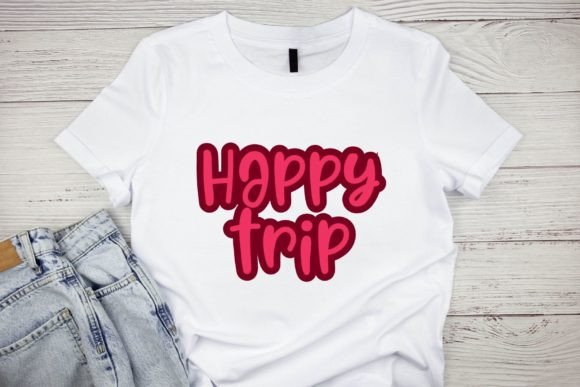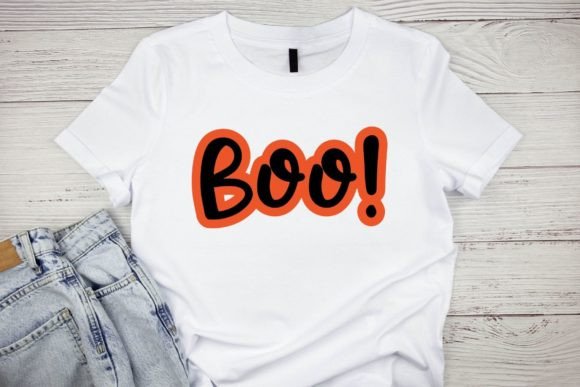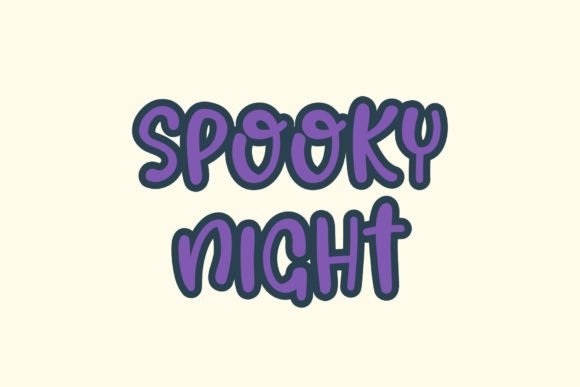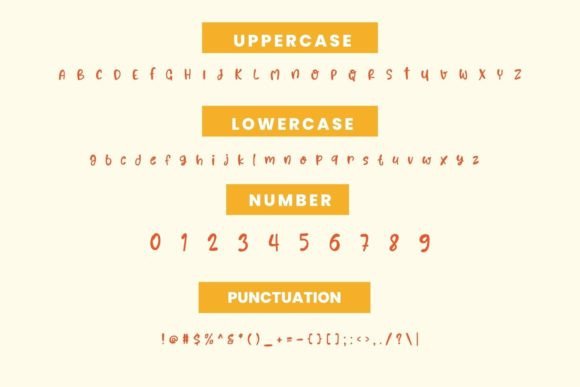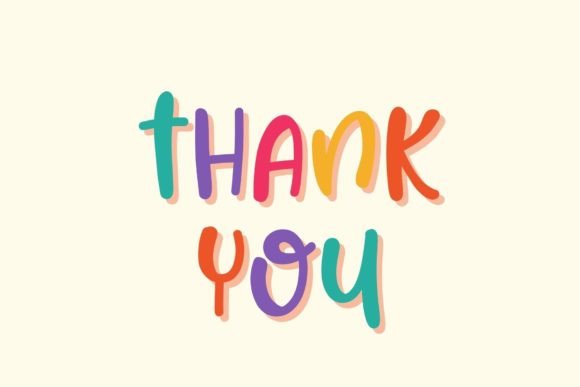
Introducing Colorful Font: The Perfect Choice for Playful and Authentic Designs
Are you looking for a font that embodies playfulness and authenticity? Look no further than Colorful Font, a cute handwritten font that is perfect for adding a personal touch to your designs. Whether you’re working on a blog post, logo, branding, ad, invitation, greeting card, planner, photo album, or decoration, Colorful Font is the ideal choice.
What Makes Colorful Font So Special?
Colorful Font is a unique and charming font that is sure to capture the attention of your audience. Its handwritten style gives it a personal and approachable feel, making it perfect for designs that require a touch of warmth and friendliness. The font’s playful and authentic vibe makes it ideal for a wide range of projects, from fun and quirky designs to more serious and professional ones.
Endless Design Possibilities with Colorful Font
One of the best things about Colorful Font is its versatility. It can be used in a variety of design projects, including:
- Blog Posts: Add a personal touch to your blog posts with Colorful Font. Use it for headings, subheadings, or even the entire text to make your content stand out.
- Logos and Branding: Create a unique and memorable logo for your brand with Colorful Font. Its playful and authentic style makes it perfect for businesses that want to stand out from the crowd.
- Ads: Grab the attention of your target audience with eye-catching ads that feature Colorful Font. Its cute and playful style is sure to make your ads more engaging and effective.
- Invitations and Greeting Cards: Make your invitations and greeting cards more special with Colorful Font. Its handwritten style gives it a personal and thoughtful feel that is perfect for special occasions.
- Planners and Photo Albums: Add a touch of personality to your planners and photo albums with Colorful Font. Use it for headings, captions, or even journaling to make your content more engaging.
- Decorations: Use Colorful Font to create beautiful and unique decorations for your home or office. Its playful and authentic style makes it perfect for DIY projects, scrapbooking, and other crafty endeavors.
Why Choose Colorful Font?
There are many reasons why Colorful Font is the perfect choice for your design projects. Here are just a few:
- Unique and Playful Style: Colorful Font has a unique and playful style that is sure to capture the attention of your audience.
- Authentic and Handwritten: Its handwritten style gives it an authentic and personal feel that is perfect for designs that require a touch of warmth and friendliness.
- Versatile: Colorful Font can be used in a wide range of design projects, from blog posts and logos to invitations and decorations.
- Easy to Read: Despite its playful style, Colorful Font is easy to read and understand, making it perfect for designs that require a clear and concise message.
How to Use Colorful Font in Your Designs
Using Colorful Font in your designs is easy. Here are a few tips to get you started:
- Choose the Right Size: Choose a size that is easy to read and fits with your design.
- Experiment with Colors: Colorful Font comes in a range of colors, so don’t be afraid to experiment and find the perfect one for your design.
- Mix and Match: Mix and match Colorful Font with other fonts and design elements to create a unique and eye-catching design.
- Have Fun: Most importantly, have fun with Colorful Font! Its playful and authentic style makes it perfect for designs that require a touch of personality and whimsy.
In conclusion, Colorful Font is a unique and charming font that is perfect for adding a personal touch to your designs. Its playful and authentic style makes it ideal for a wide range of projects, from blog posts and logos to invitations and decorations. With its versatility, ease of use, and range of design possibilities, Colorful Font is the perfect choice for designers and crafters who want to create engaging and effective designs.